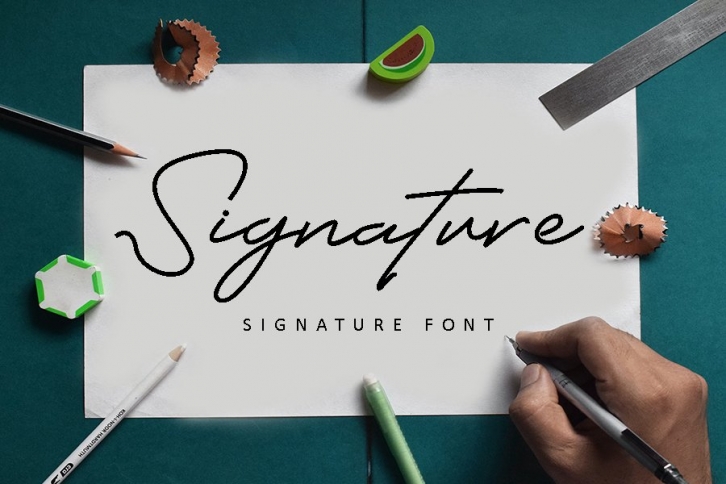
Signature is a gorgeous font that was realeased on October 16, 2020. The font can be used in many style contexts and design environments. Perfect for invitations, magazines, websites, logos, and more! It was designed by InermediaSTUDIO and the file size is 20.82 MB. Thanks for checking out this font!